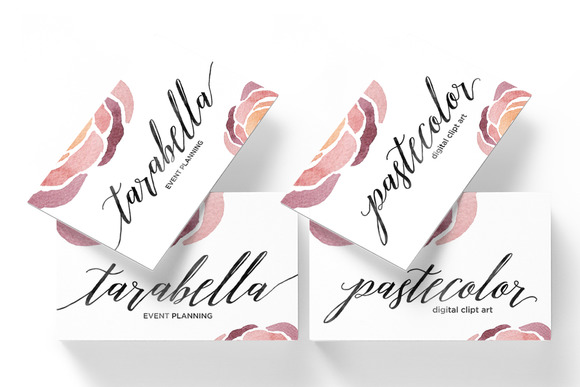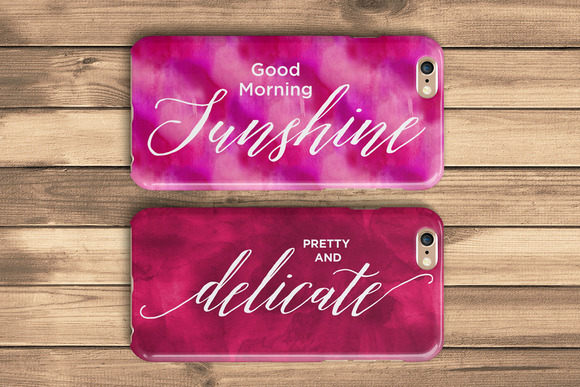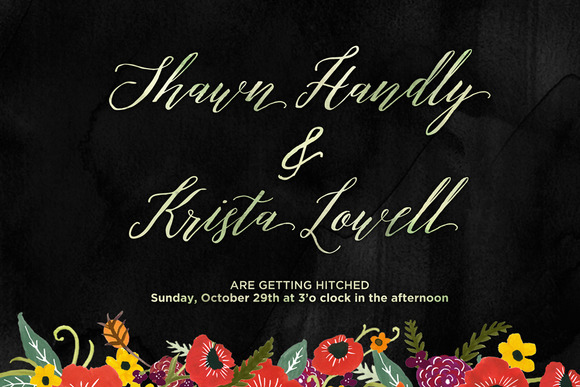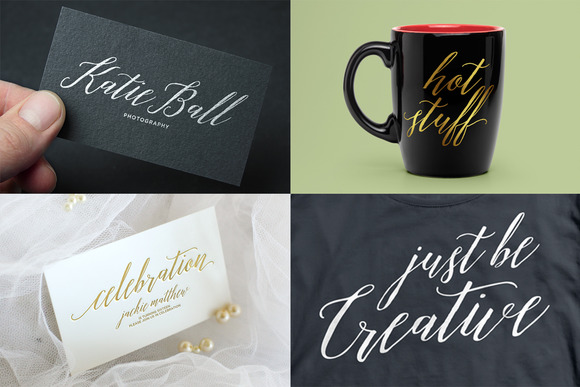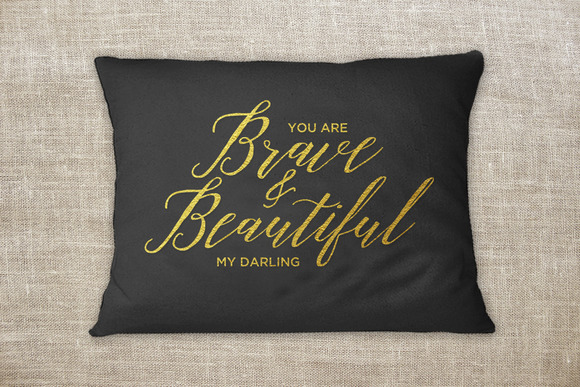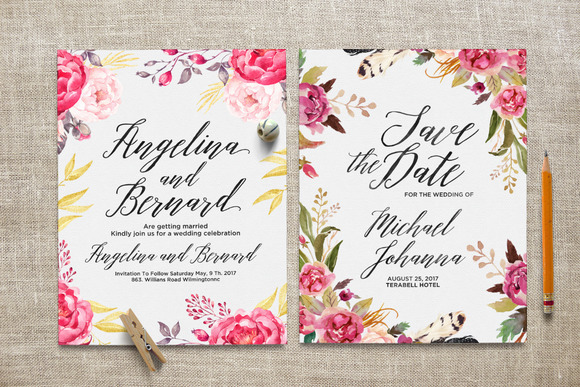
Introduction to Michaela Script Font
As a designer, there’s nothing quite like the thrill of discovering a new, high-quality design resource that sparks inspiration for your next creative project. For me, that moment came when I stumbled upon the Michaela Script Font. Its organic, hand-brushed feel immediately caught my eye, and I couldn’t wait to dive in and explore its possibilities.
With its dancing baselines and playful flair, the Michaela Script Font is the perfect addition to any designer’s toolkit. But what really sets it apart is the variety of alternates and swashes that can be used to add a touch of personality to your designs. Whether you’re working on a project that requires a touch of elegance or a more whimsical feel, the Michaela Script Font is sure to deliver.
One of the best things about this font is its versatility – from logos and branding to wedding invitations and social media graphics, the Michaela Script Font can be used to create stunning designs with a transparent background that really make your work pop.
Key Features of Michaela Script Font
- High-quality design resource ideal for creative projects, offering a beautiful and elegant script font style.
- Features a unique, handwritten style with subtle flair and expressiveness, perfect for adding a personal touch to designs.
Honest Review: Michaela Script Font
As a designer, I’ve had the pleasure of working with various fonts for my creative projects. Recently, I stumbled upon the Michaela Script Font, and I must say, it’s been a game-changer for my design resource library.
- The font’s elegant and cursive design makes it perfect for weddings, invitations, and other romantic-themed projects.
- The high quality of the font ensures a smooth and seamless experience when working with it.
One thing I’ve noticed is that the font might not be suitable for bold or large-scale text, as it can become a bit difficult to read.
Additionally, the font’s design may not be ideal for digital screens, as it can appear a bit fuzzy or pixelated.
Overall, I’m thoroughly impressed with the Michaela Script Font. Its beauty and versatility make it a valuable addition to any designer’s library. If you’re looking for a high-quality font for your creative project, I highly recommend giving it a try.
Design Tips
Use the Michaela Script Font in conjunction with a high-quality design resource to create a visually appealing design. Experiment with different font sizes, colors, and styles to find the perfect combination for your creative project.
The Michaela Script Font is perfect for wedding invitations, baby shower invitations, and other creative projects where a elegant, handwritten font is needed. You can also use the font as a design element in logos, brochures, and other marketing materials.